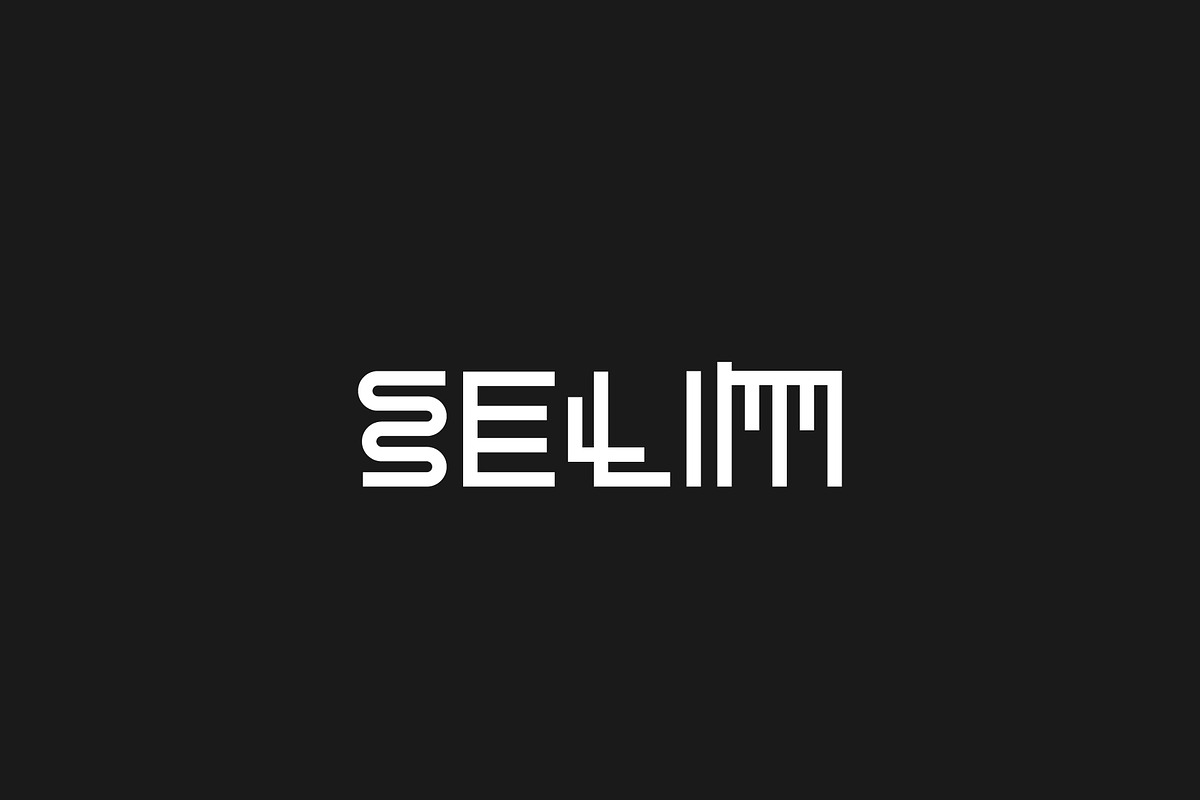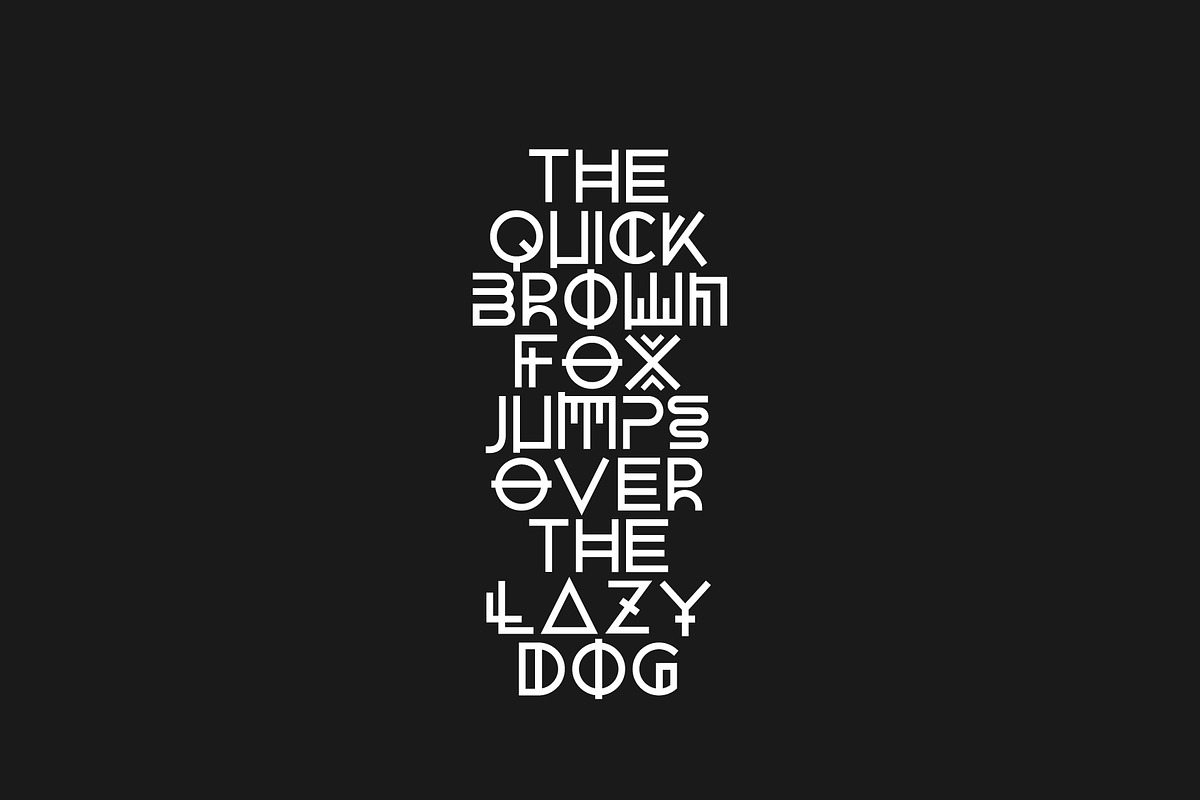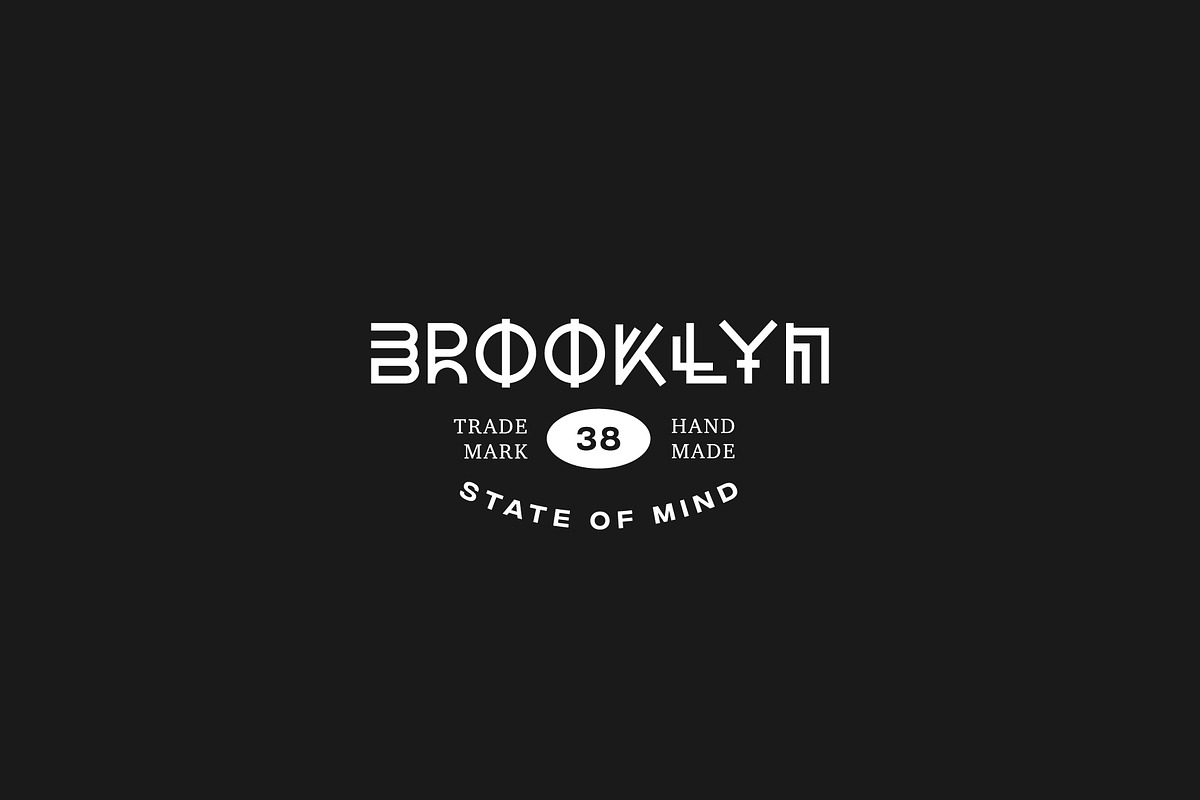
Selim Font
Selim Font by Fabian Korn is a font selected for branding, posters, packaging, typography.
- Uppercase,Numerlas
- Selim is a uppercase display font.
Why Selim Font is worth a look
Selim Font by Fabian Korn fits naturally into Branding, posters, packaging, typography.